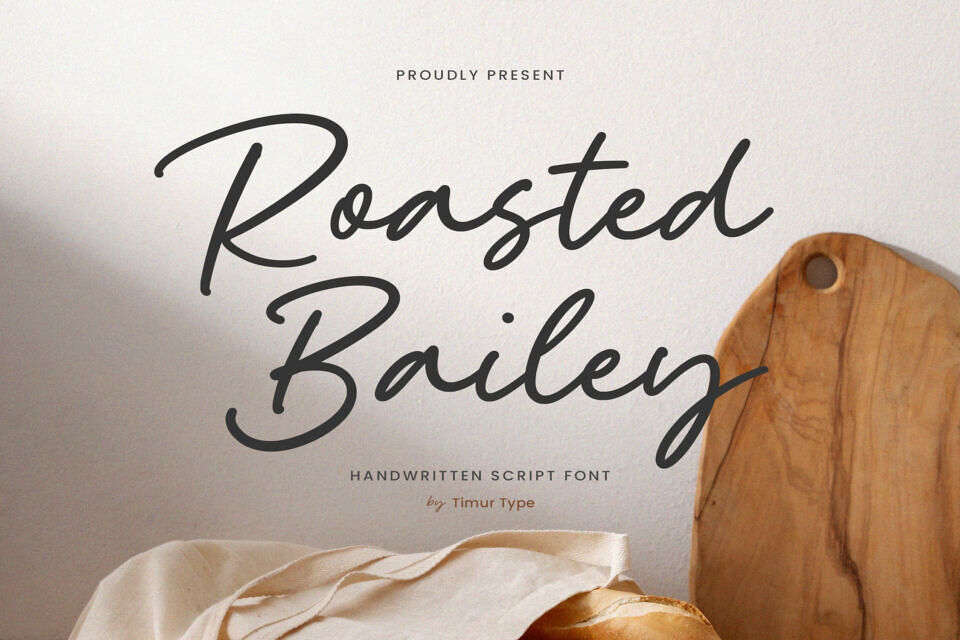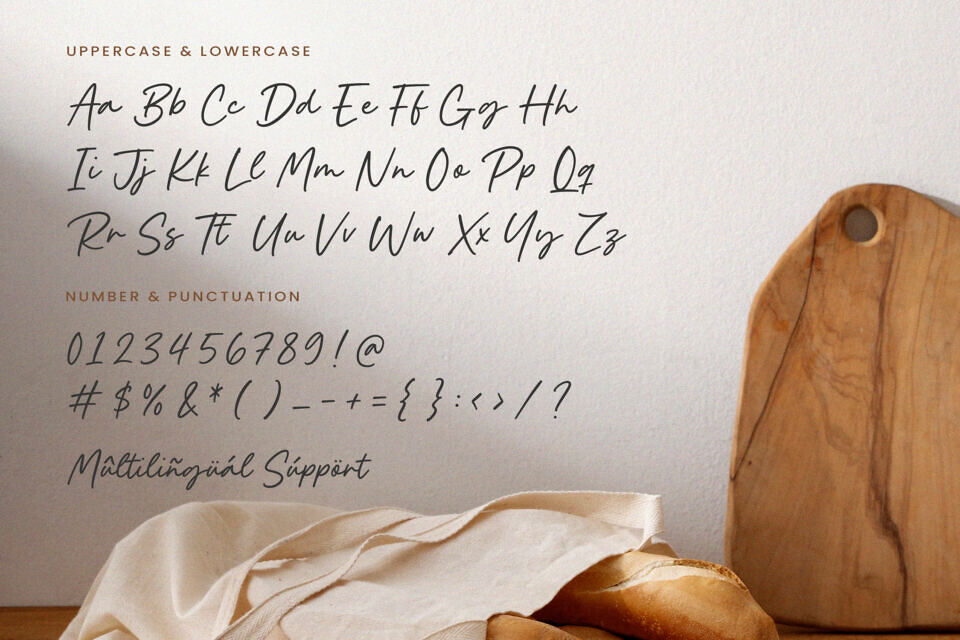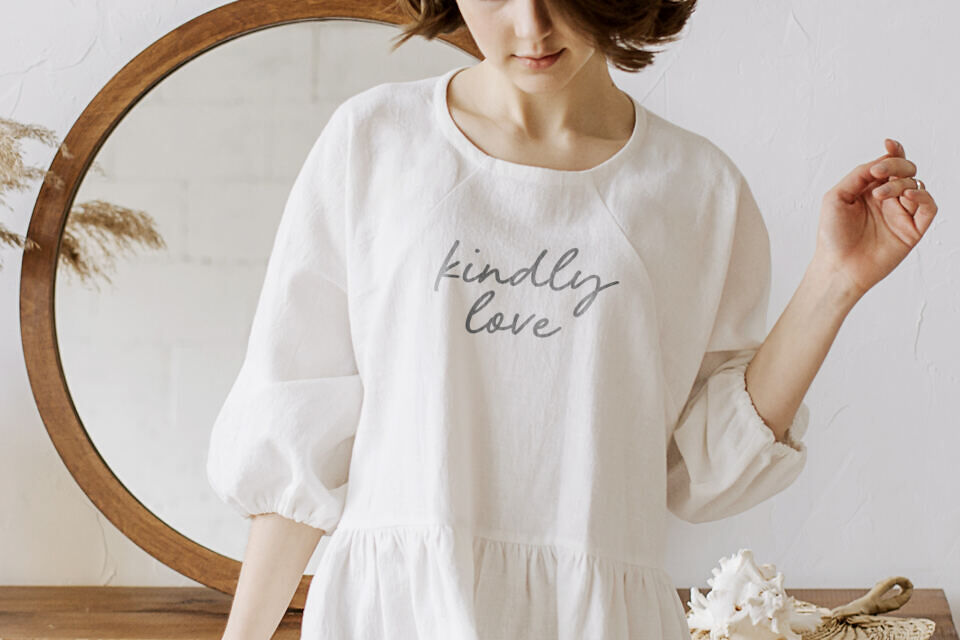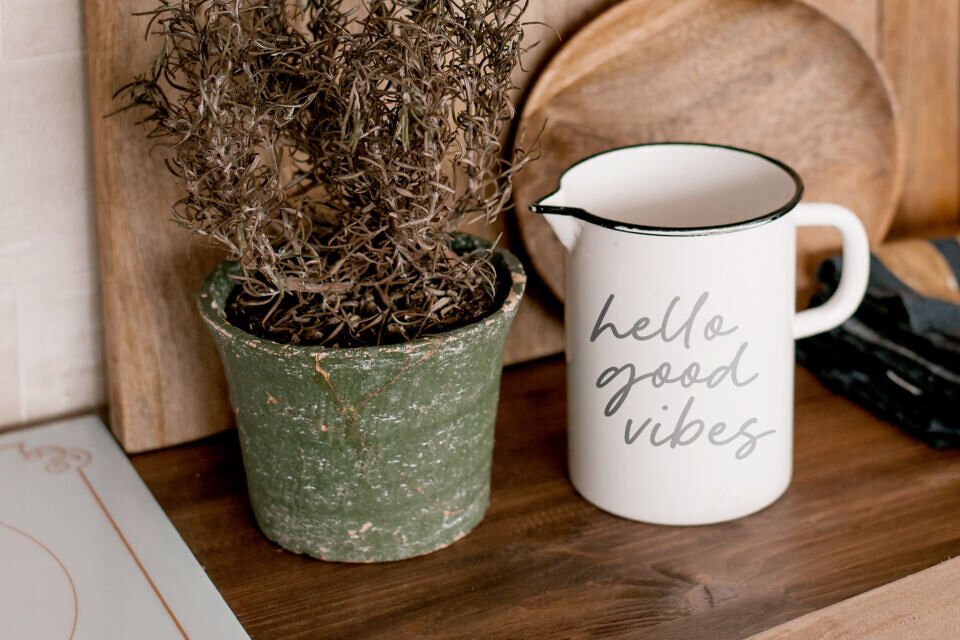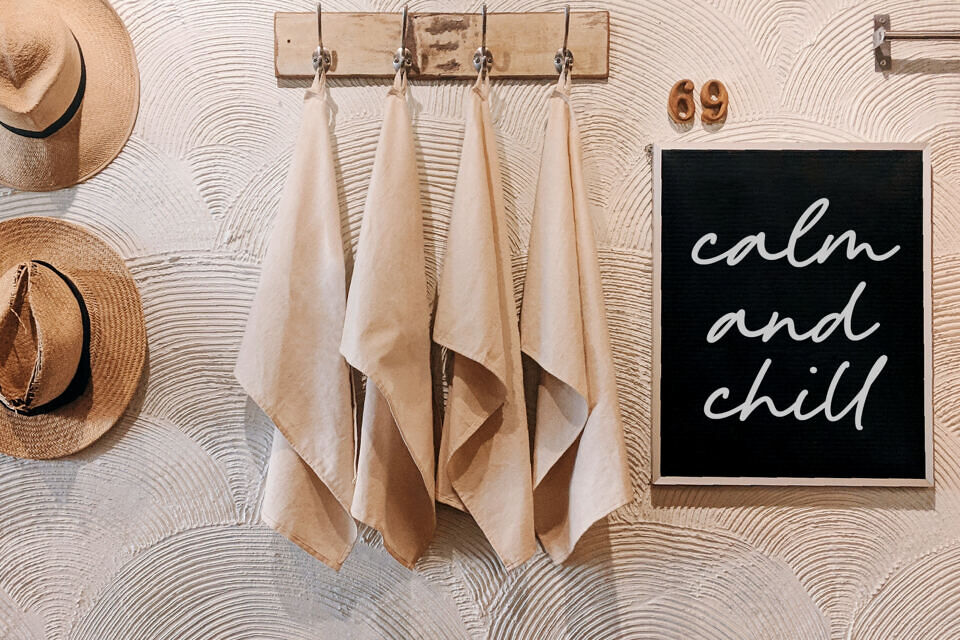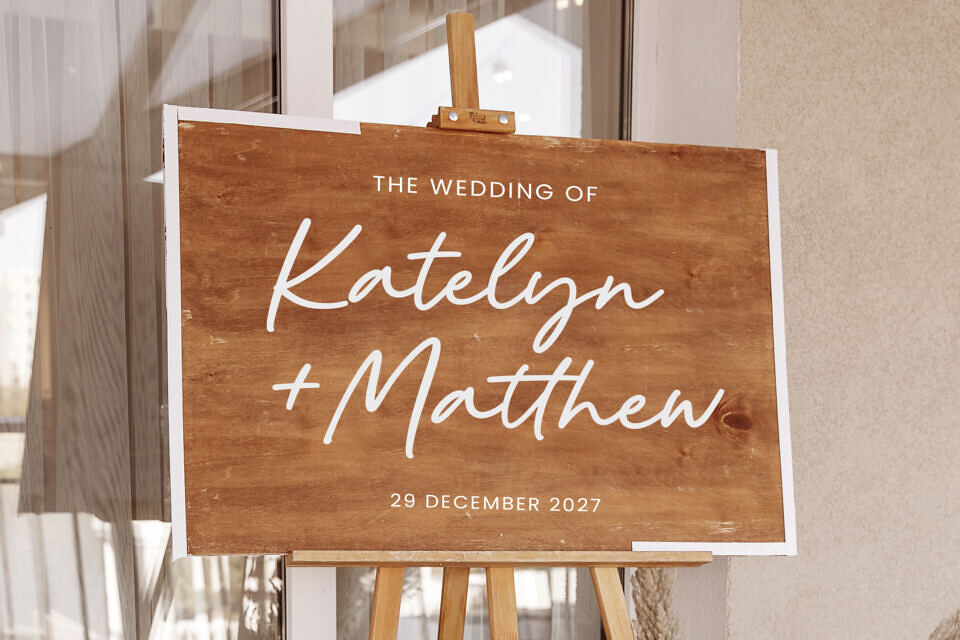
Roasted Bailey is a handwritten script font that exudes timeless elegance. It adds a personal touch to designs, making them stand out in a digital world. Each letter and word has a unique, authentic feel, giving your projects a distinct personality.
This font style celebrates the beauty of handwriting, bringing warmth and creativity to your work, and blending traditional and modern elements in a poetic way.